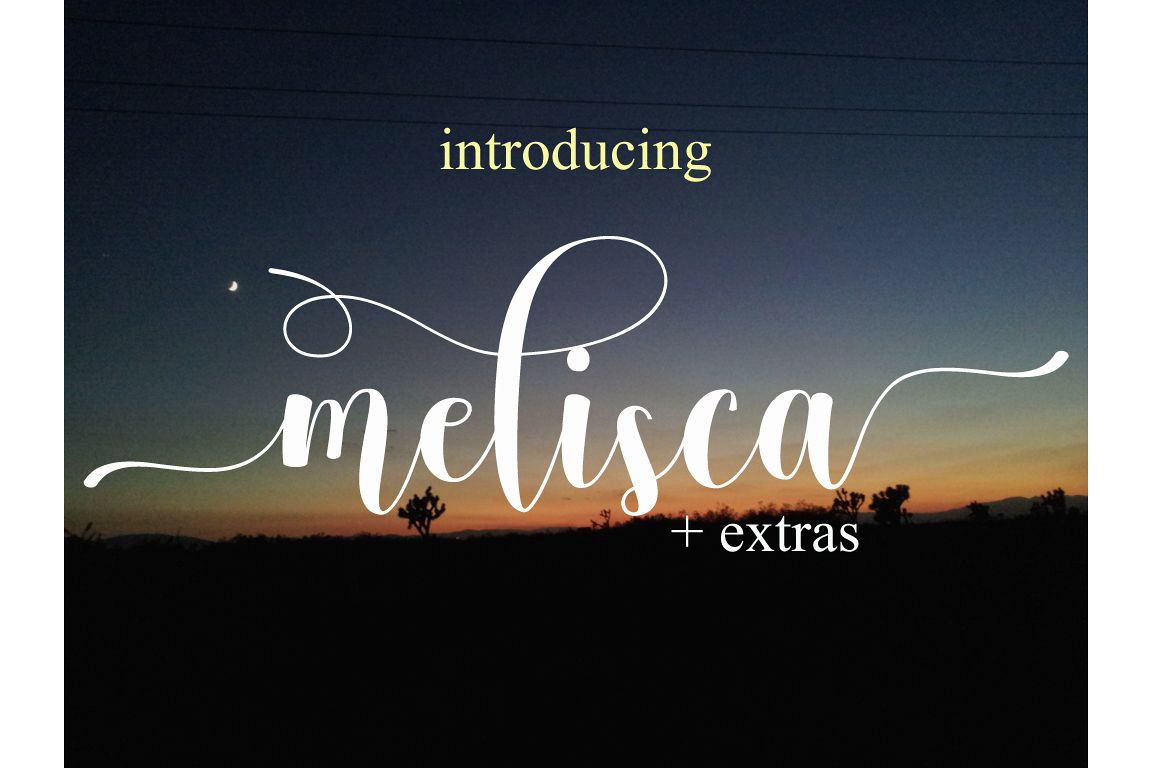
melisca and extras
Introducing :
Melisca is a new fresh & modern script with a sweet calligraphy-style, decorative characters and a dancing baseline! So beautiful on invitation like greeting cards, signature, logos, wedding invitation, t-shirt, letterhead, signage, lable, news, posters, badges, branding materials, business cards, quotes, posters, and more! Bonus is a set of 52 swash, flourish and floral elements.
Initial Alternates
Terminal Alternates
PUA Unicode
Stylistic sets
Ligature
Basic Latin A-Z and a-z
Numbers